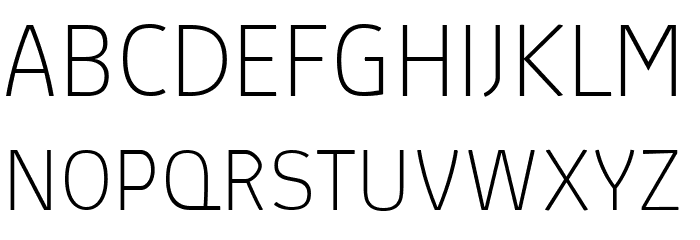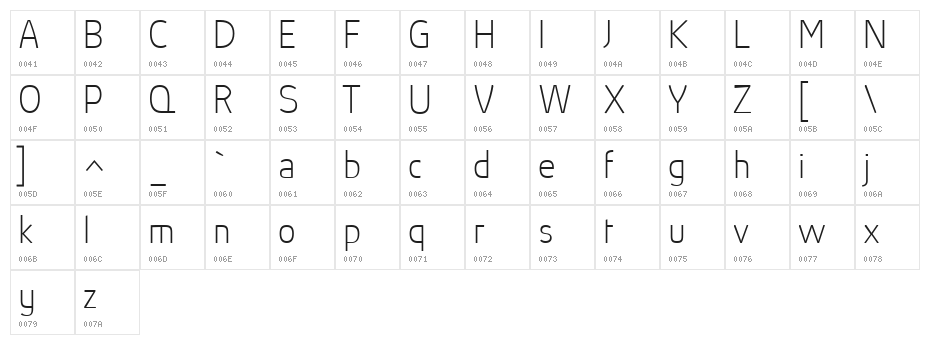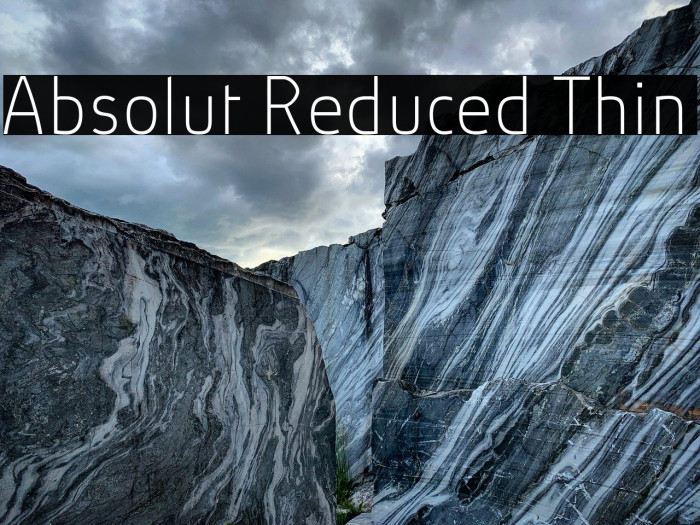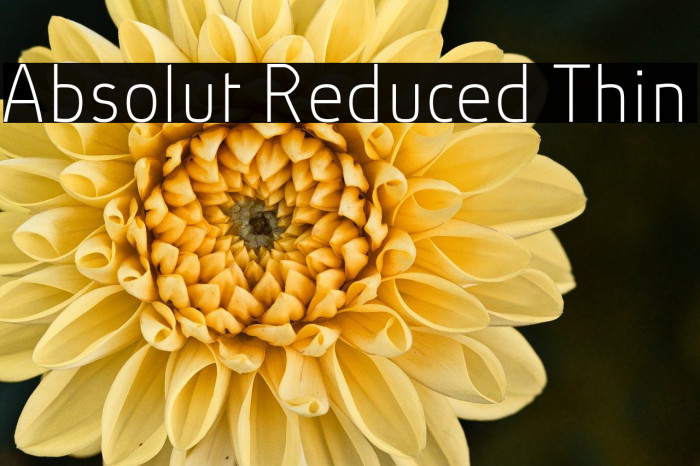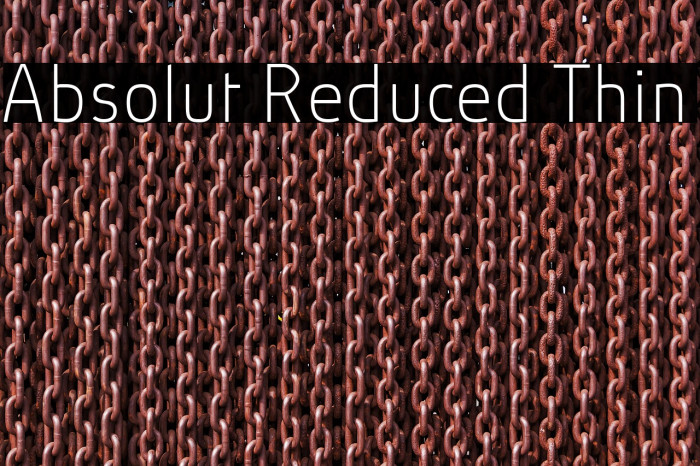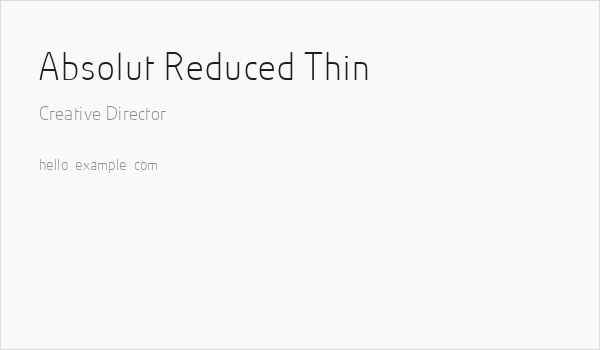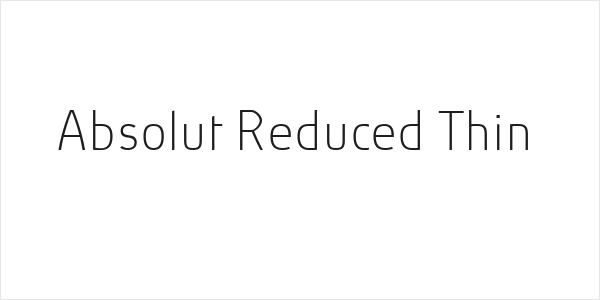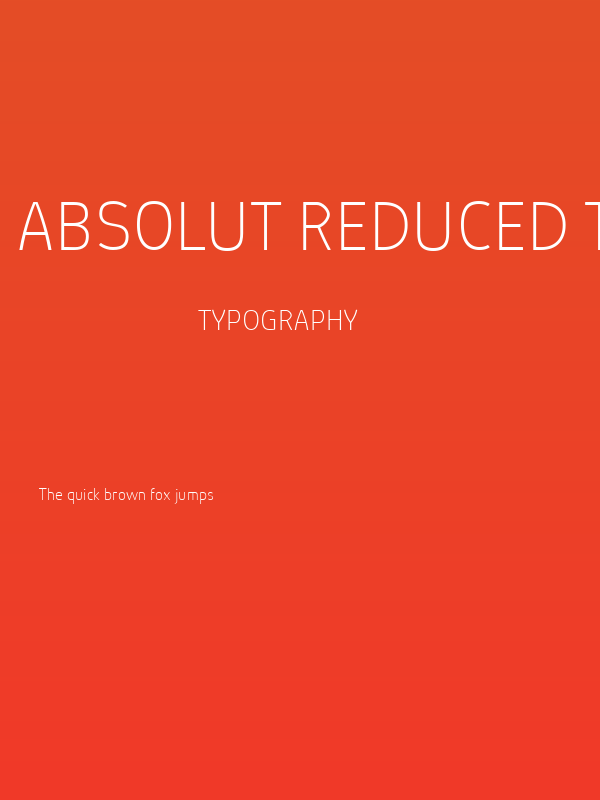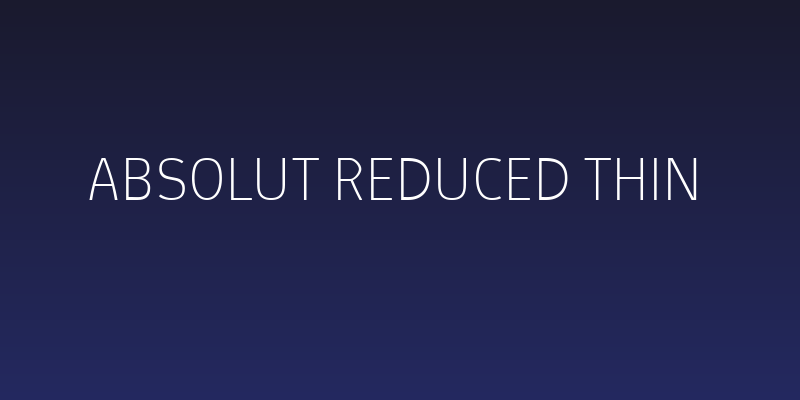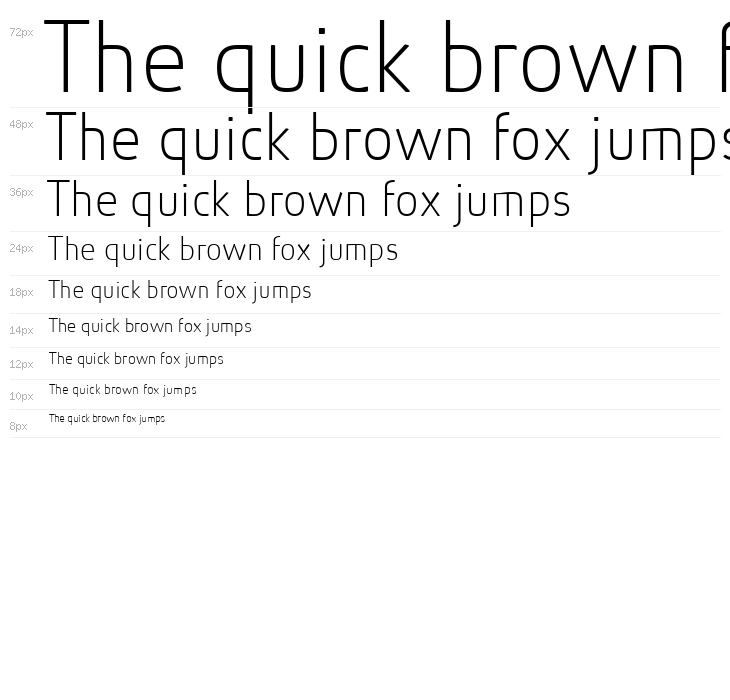
Absolut Reduced Thin Font
Absolut Reduced Thin Description
This font features a clean and modern sans-serif design with a thin, elegant stroke. The characters are well-proportioned, offering a sleek and minimalist aesthetic. The uppercase letters maintain a uniform height, while the lowercase letters exhibit a subtle curvature, adding a touch of softness to the overall appearance. The numerals are consistent with the letterforms, ensuring readability and balance. Special characters are designed with simplicity in mind, complementing the font's overall style. This font is versatile, suitable for a range of applications where clarity and modernity are desired.